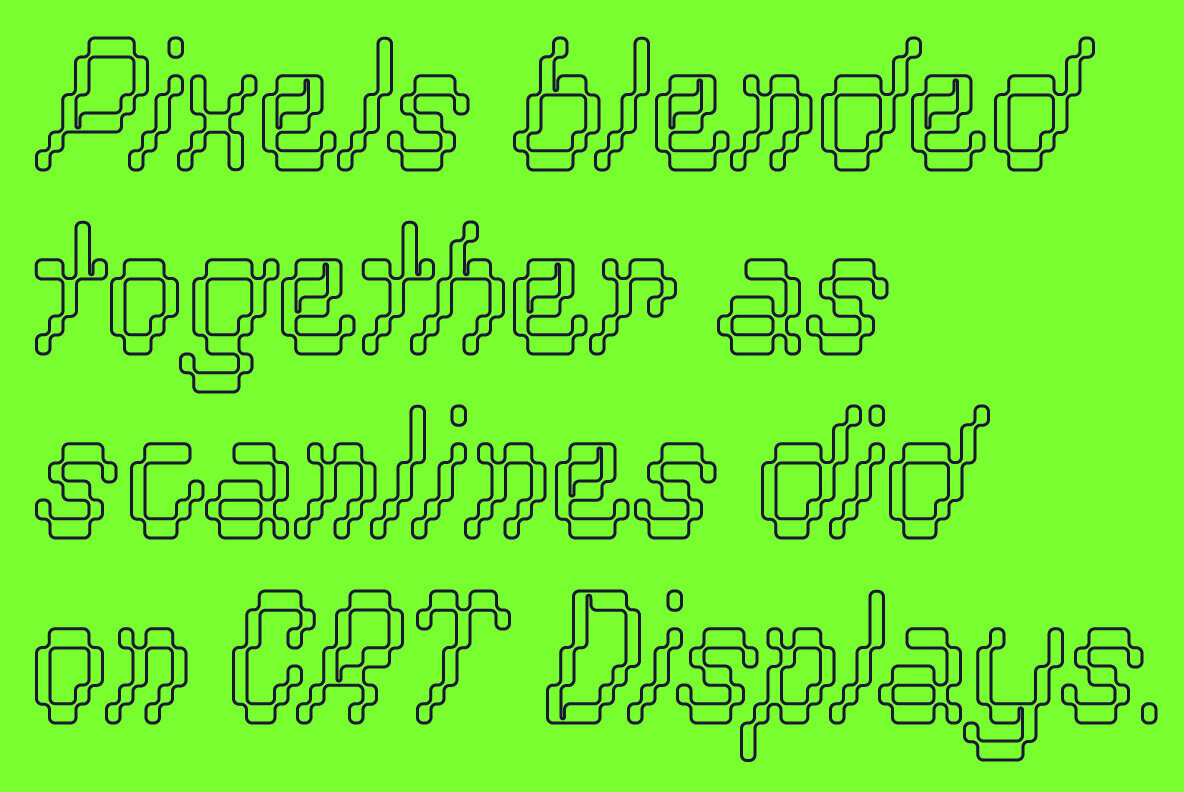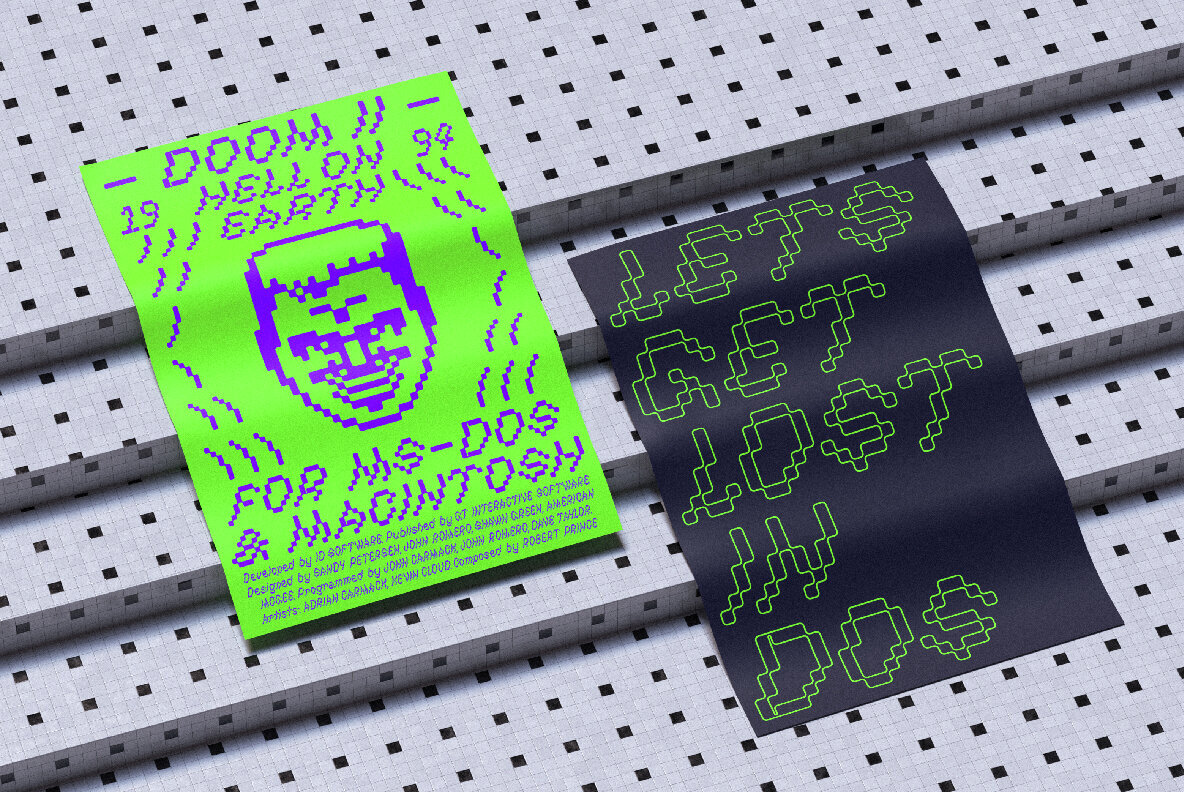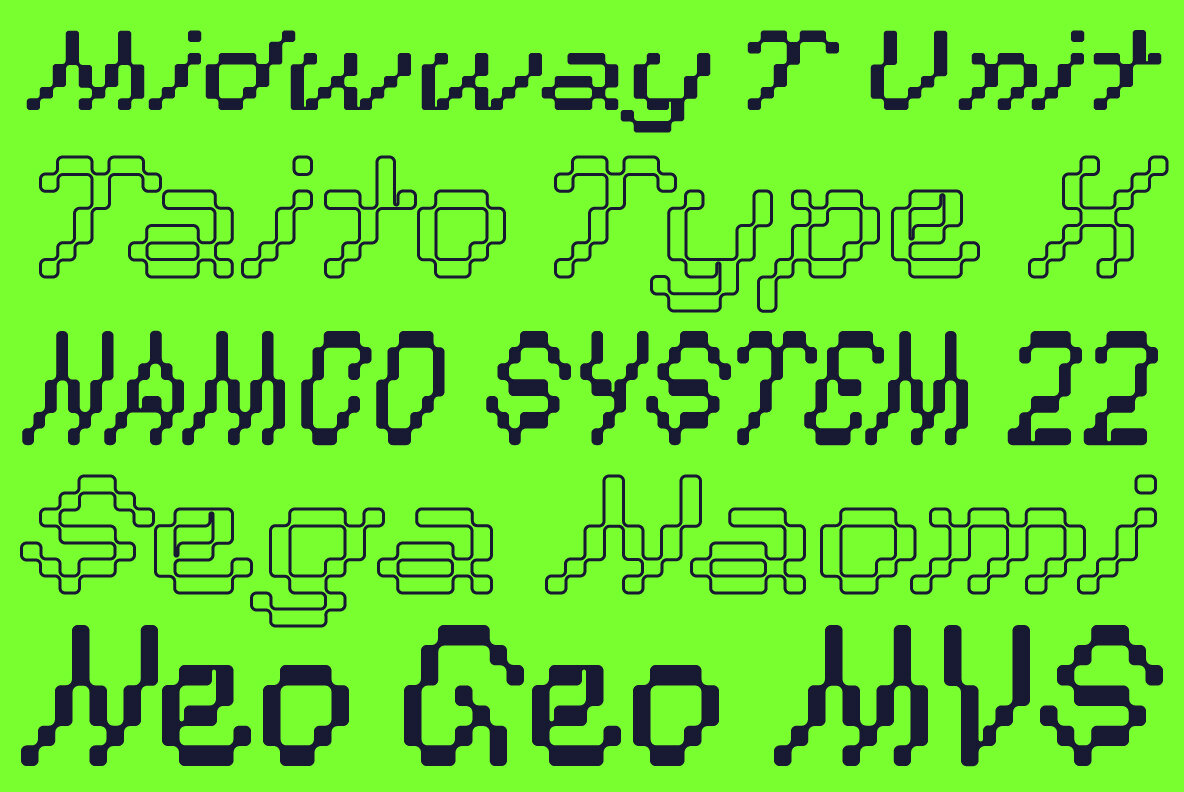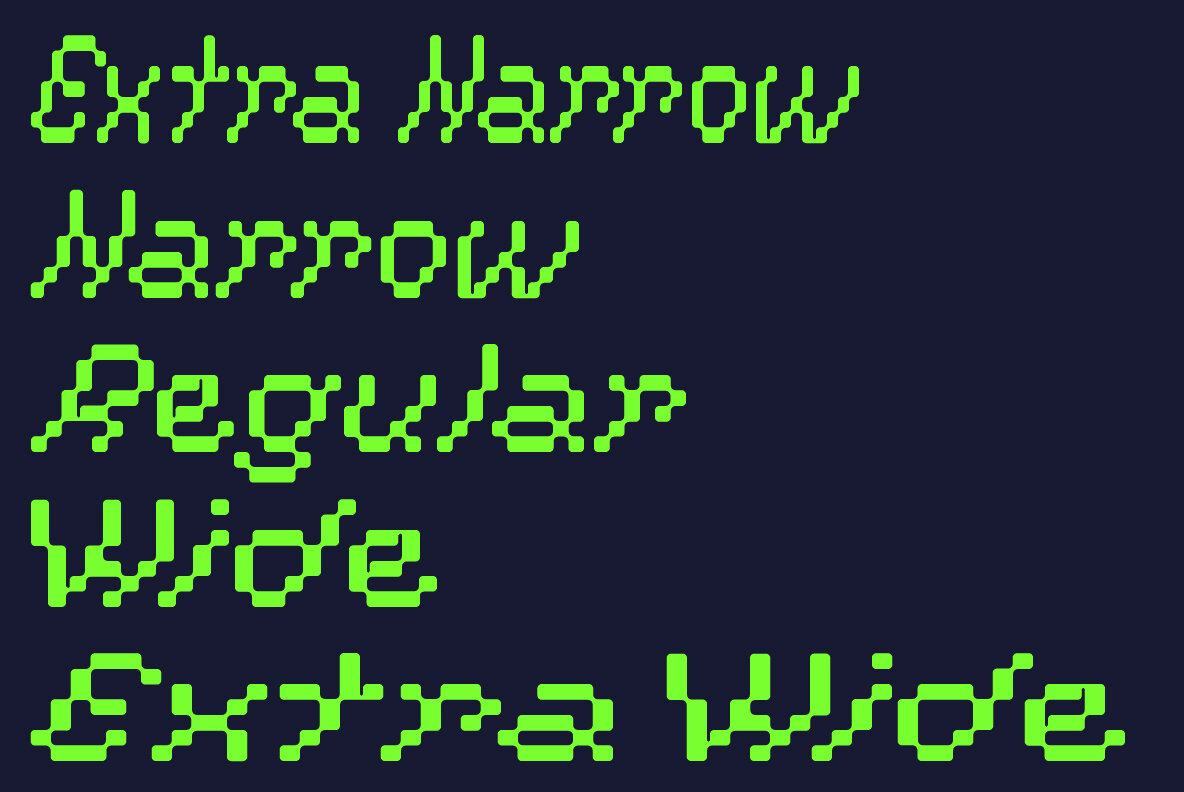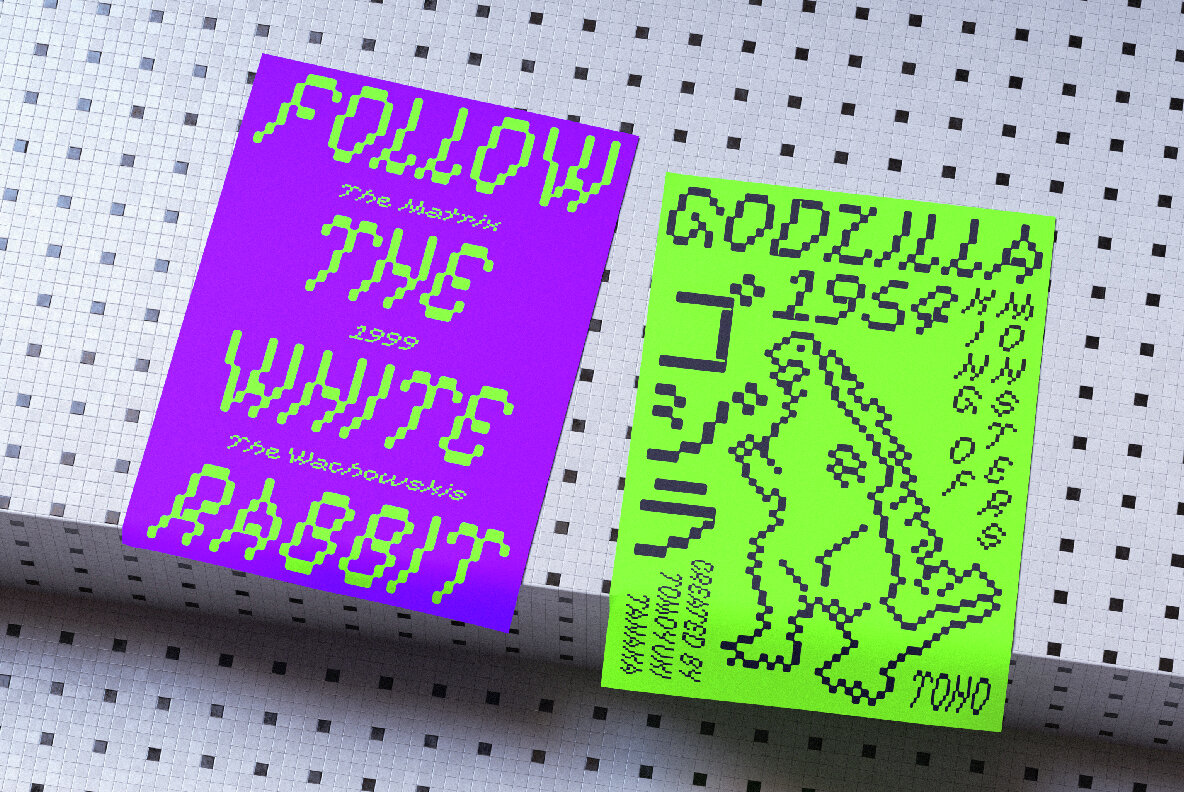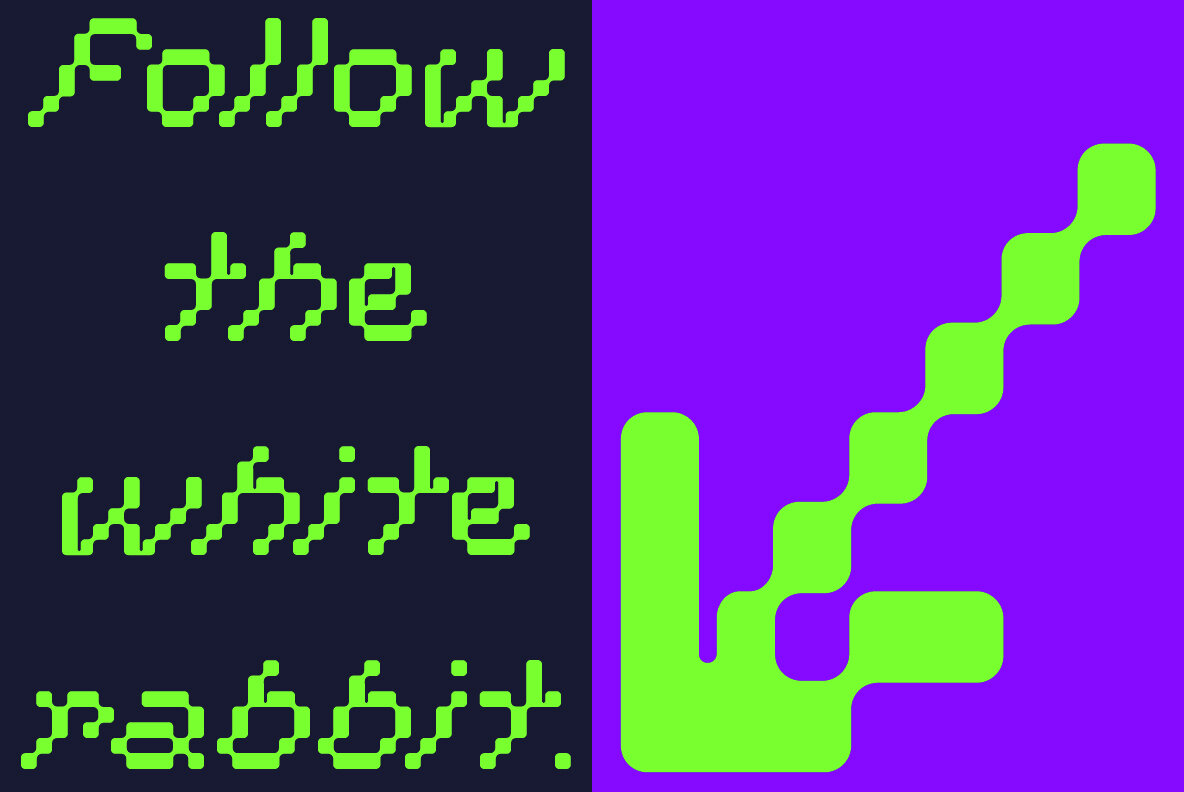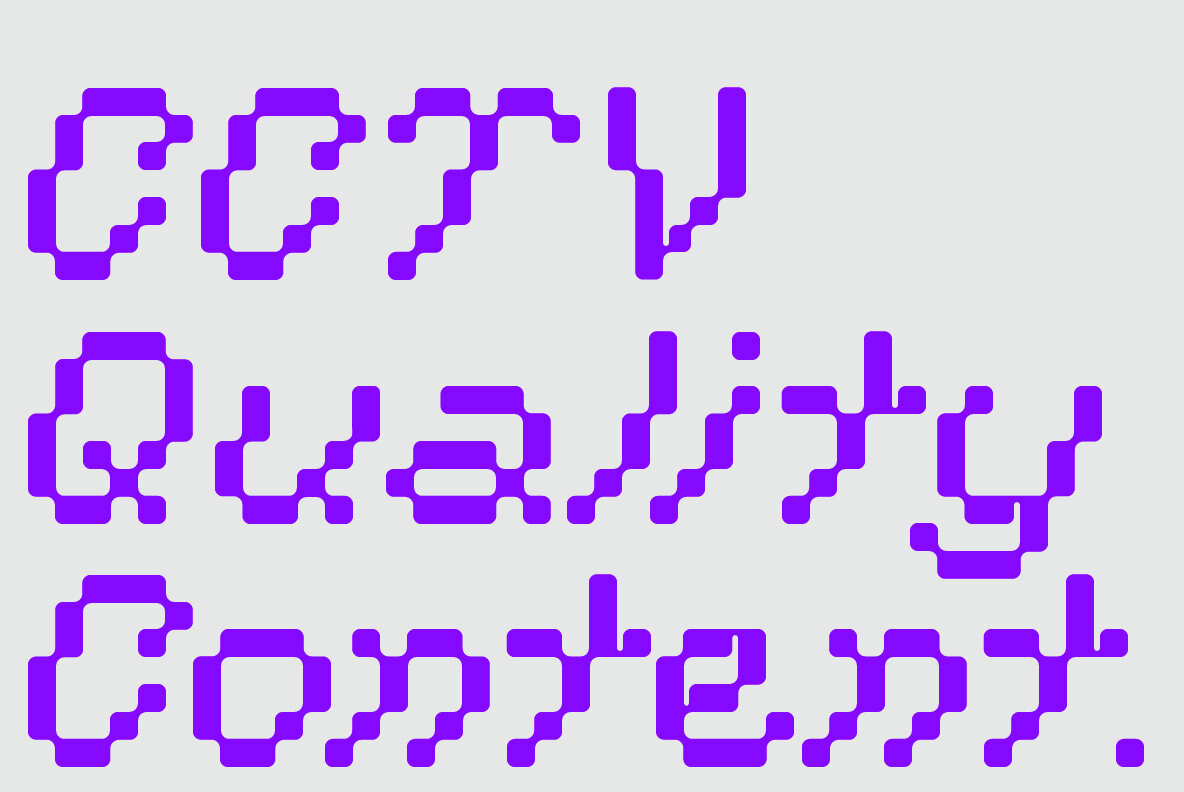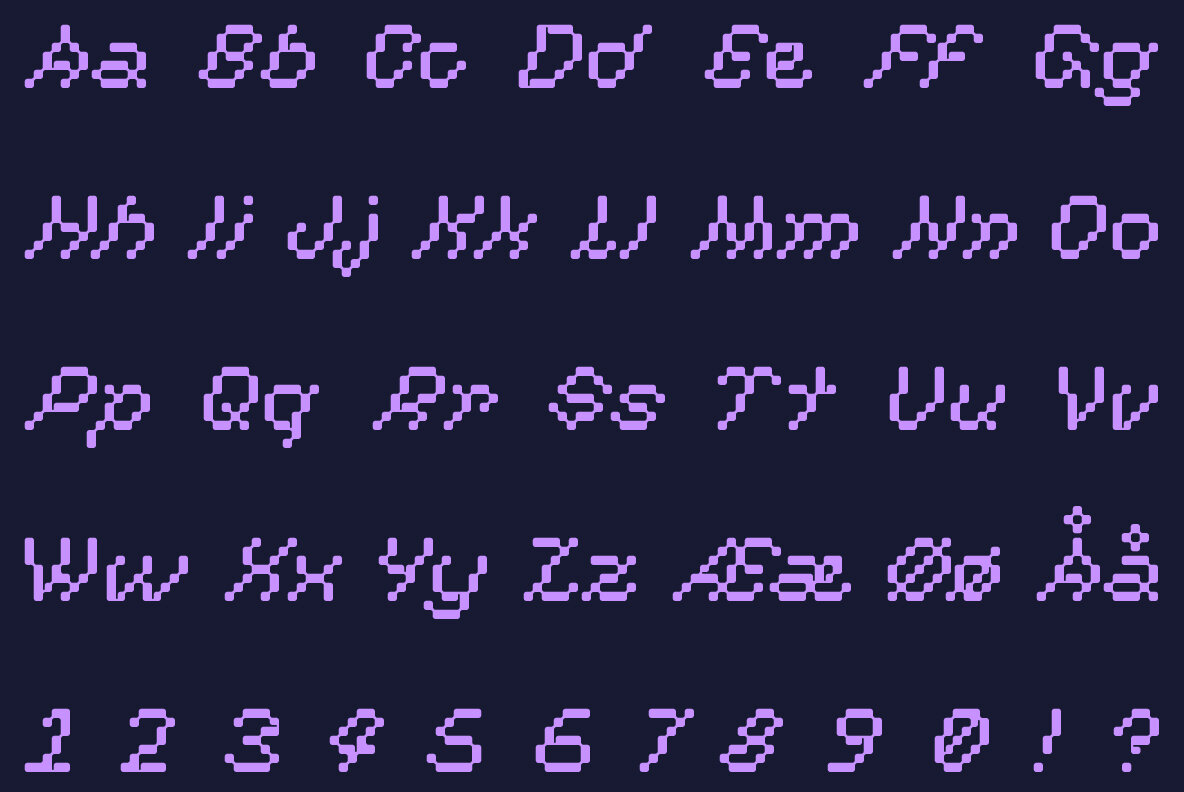
Low Def Font
Low Def, short for Low Definition, is inspired by fonts displayed on old CRT televisions / monitors, sometimes with quirky characteristics. From video game consoles, home computers to the dim noisy arcades. With it's lower resolution analogue signal shown through scanlines, it created a smoothened look that blended together the pixels on CRT displays. The family consist of 5 different widths, from Extra Narrow to Extra Wide. Roman, Cyrillic, Katakana & Hiragana are supported.